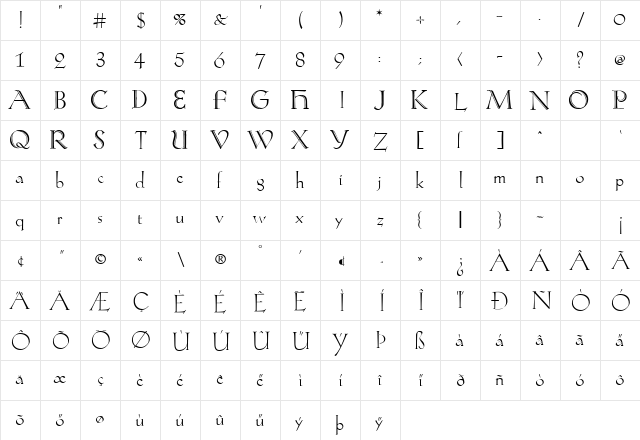
Koch-Antiqua Zier Regular
| Designer | Dieter Steffmann |
Design Context for Koch-Antiqua Zier Typeface
Koch-Antiqua Zier is a composed and adaptable typeface that performs quietly and consistently across a wide range of design contexts.